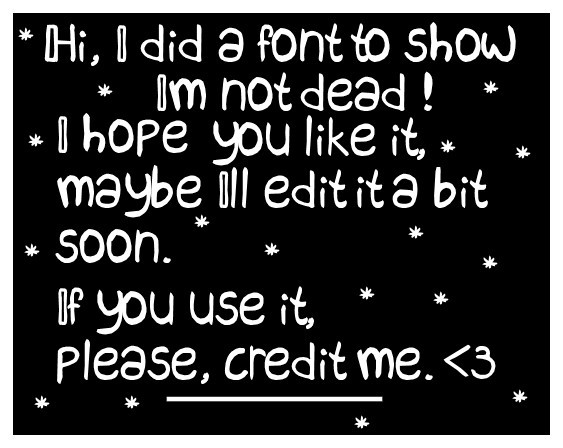
Made in Flash and Font Creator .Please check out my other font as well: oolkatloo.deviantart.com/art/Gβ¦
It's very cute, although it lacks a few important figures
Though this is a comic font, I do think more construction and consistency is necessary for this font to work. The letters 'y' and 'a' are huge compared to the other letters, and 'i' and 't' in particular are too small. The line weight is also inconsistent, and you haven't taken into consideration that letters shouldn't only have to look good on their own, but also in combination with other letters. For example, the ascender of the 'f' is so small that it almost creates a closed loop with the horizontal stroke, particularly when the 'f' is next to the 'o'. Also, kern the font more loosely. Especially at small sizes, the negative spaces will disappear and the text will become hard to read, not to mention there won't be a consistent rhythm anymore.
i know it's not a consistent font at all, but I made like 3 fonts in my life,
they're just for fun. Not for professional use or anything like that.
I understood that, of course. I figured if you want to design another font, you might like some tips from a type designer.
So how did you make your own font? I am working on mine now, but I don't actually know how to turn it into a REAL font. Please tell
the way i did it is make the letters seperately in flash and save them seperately, then load them into the program font creator. Hope that helps!
Hahaha it looks exactly like my printing... Great job!